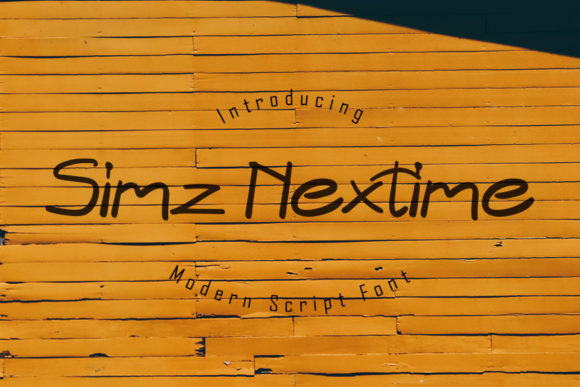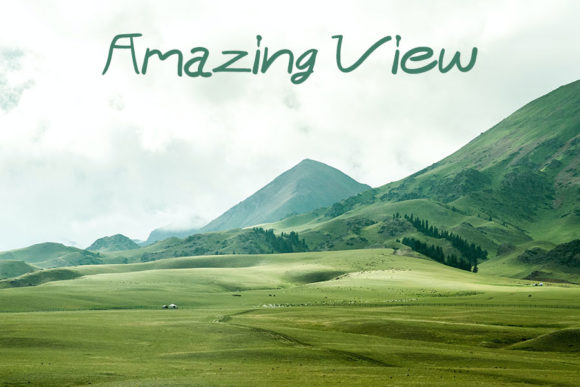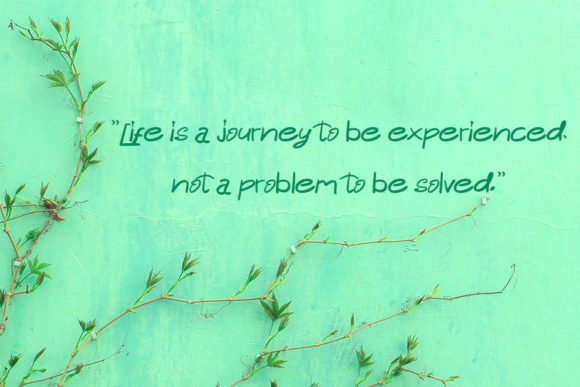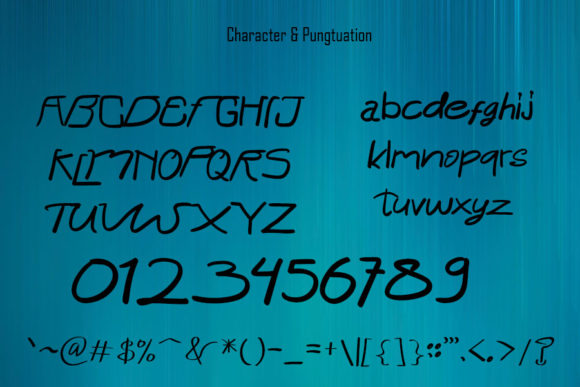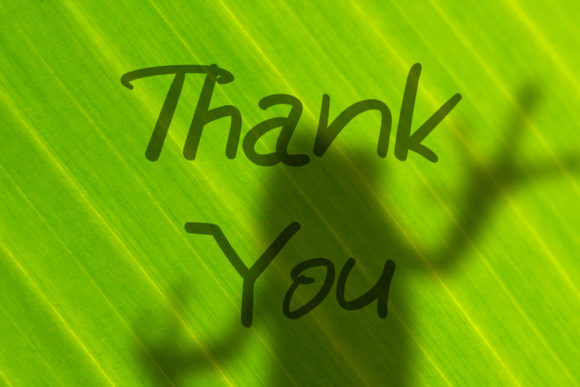
Simz Nextime Font
About Simz Nextime Font
Simz Nextime is a cool and unique handwritten font. Whether you’re using it for crafting, digital designing, presentations or greeting cards making, it’s perfect!